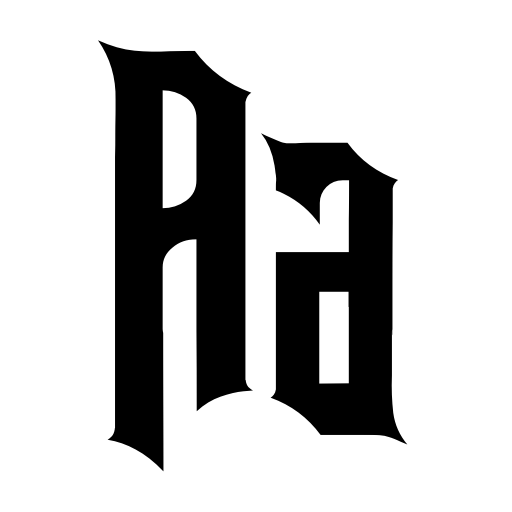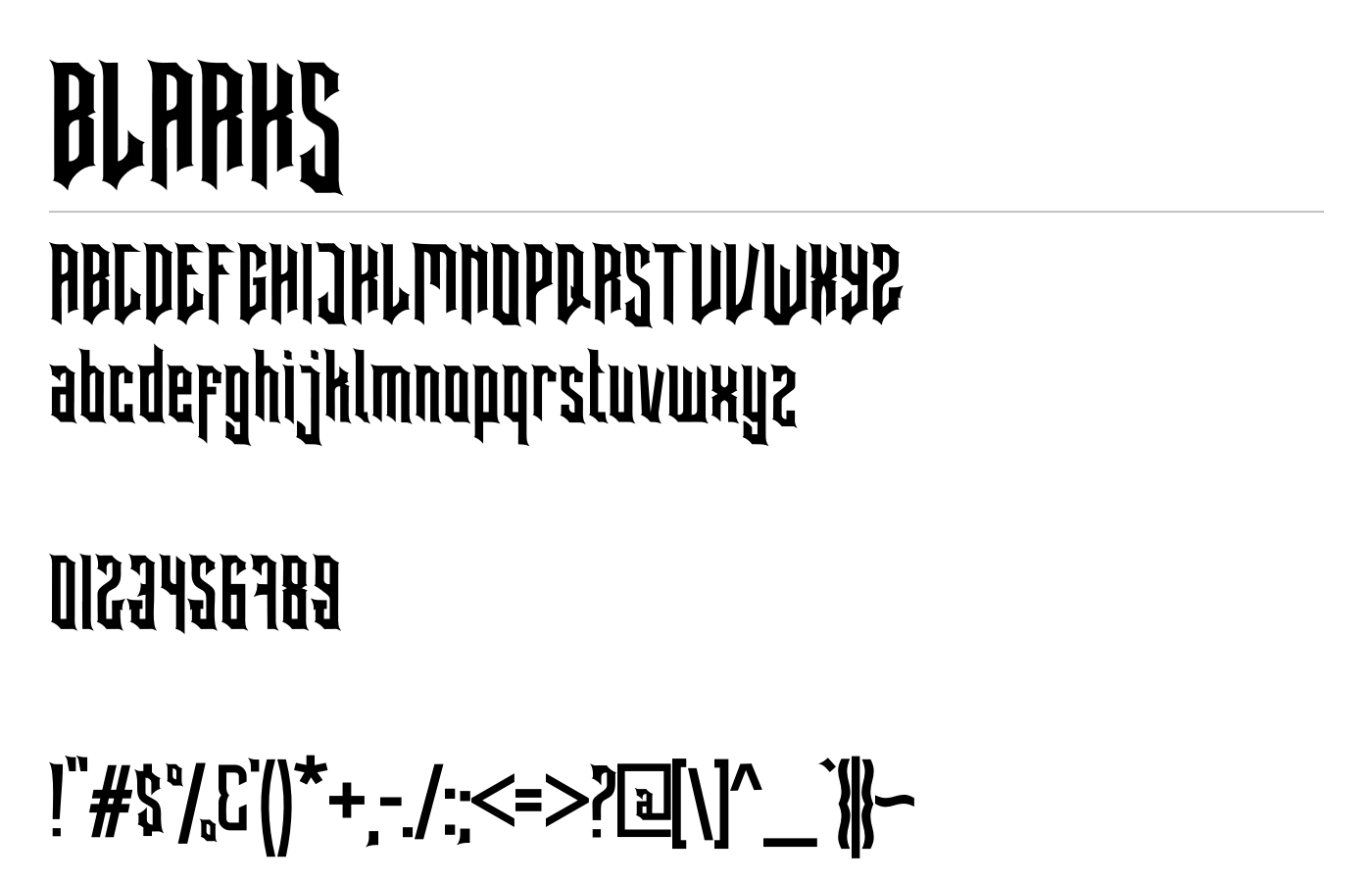
BLARKS is a bold, condensed blackletter-inspired display font with sharp, angular strokes and high contrast, exuding a dramatic and gothic vibe. Its striking letterforms, featuring pointed serifs and tight spacing, make it perfect for edgy branding, headlines, and posters that seek to capture attention with a vintage yet modern twist. This font works well in designs that aim to convey strength, uniqueness, and a touch of rebellious style.
BLARKS Font
About BLARKS Font
| Font family | BLARKS Font |
| Designer | zamjump 2020 |